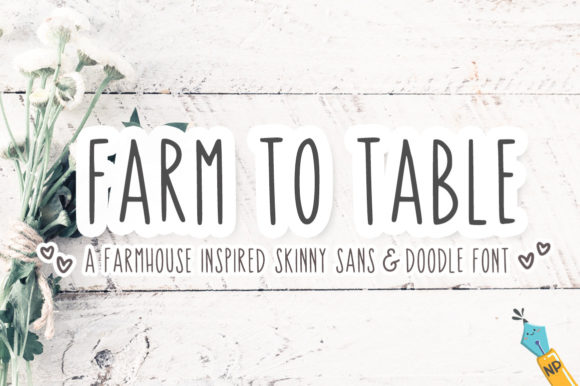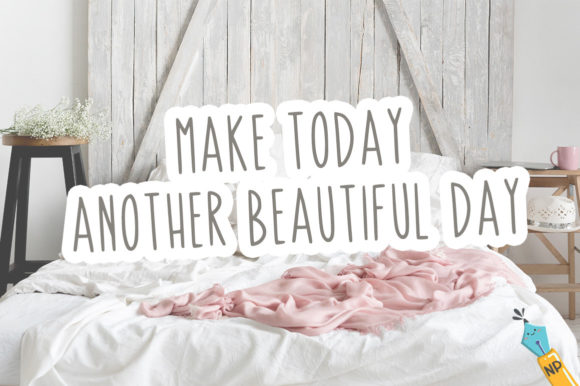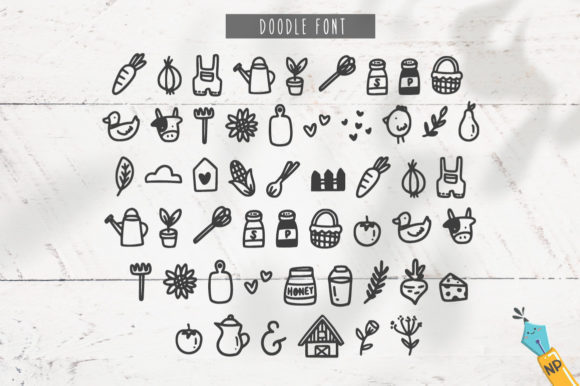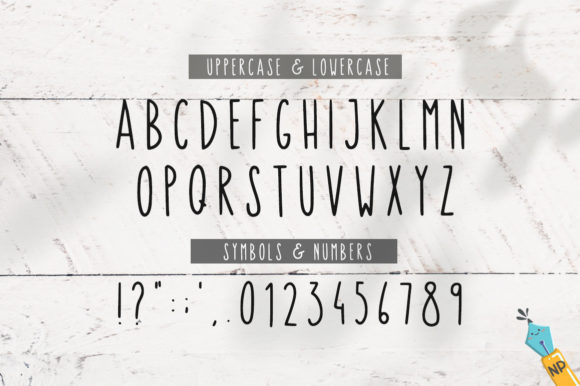
Farm to Table Font
About the Farm to Table Font
Get ready to be inspired by Farm to Table Font, a fresh and dynamic typeface for modern creators. Farm to table is a sweet duo font (sans serif and dingbats). It is incredibly versatile and it will add a modern and rustic look to a variety of crafts, from vinyl stickers to labels, t-shirts, and more!
Farm to Table’s playful sans serif and charming dingbats excel in branding projects for food-related businesses, particularly those emphasizing a handcrafted or artisanal approach. It works wonderfully for logos, short headlines, packaging designs (especially labels and stickers), and social media graphics. However, its informal nature makes it less suitable for large bodies of text or UI elements where readability is paramount.
Consider pairing the sans serif with a clean, neutral sans serif like Open Sans for body copy or a more elegant serif like Lora for a sophisticated contrast. The dingbats can be used sparingly to enhance visual interest within layouts featuring these pairings.
The overall personality is friendly and approachable, with a touch of rustic charm, making it ideal for brands that wish to project warmth and authenticity.
Farm to Table Font Usage Examples
Farm to Table Font Example